16 Bold Script Fonts for Stunning Display Designs in 2026
Bold Script Fonts bring thick connected strokes, expressive curves, and strong display weight to visual projects. This collection is built for designers choosing fonts for logos, posters, packaging, stickers, merch, invitations, and social graphics. Use the categories below to compare retro, playful, rounded, and polished script styles without scanning every font one by one.
Retro & Layered Bold Script Fonts
These bold script fonts use vintage curves, shadows, inline details, and sign-painter energy, making them strong choices for posters, merch, signage, and nostalgic logo marks.
Price Mart Duo Font
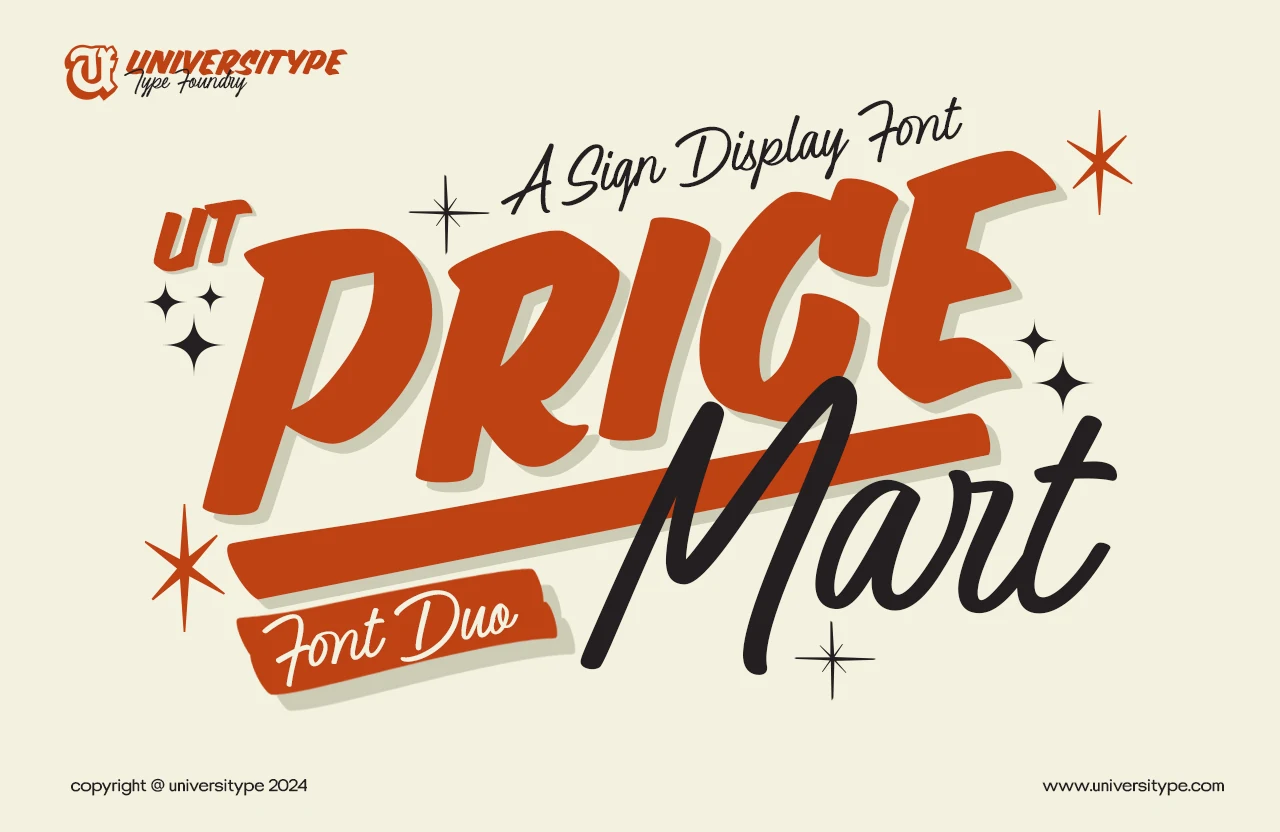
Best For: signage, posters, logos, retro designs
Price Mart Duo Font pairs a chunky slanted display style with a loose script, giving the layout a clear sign-painter rhythm. The bold caps have angled cuts, tight counters, and a slightly irregular hand-drawn edge, while the script adds long looping strokes suited to Bold Script Fonts with a retro commercial feel.
The practical strength is hierarchy: use the heavy sans for the main word, then let the script act as a secondary name, tag, or modifier. Keep contrast high and avoid crowding the script beneath dense headlines, because its tall loops need room to stay readable against the blockier lettering.
Cheers Font
Best For: logos, posters, stickers, retro designs
Cheers Font pushes a 70s and 80s sign-lettering mood through thick connected strokes, inflated curves, and oversized entry and exit swashes. Its rounded script shape feels upbeat rather than polished, giving Bold Script Fonts a strong retro display voice with plenty of logo-ready weight.
The style works best when the main word is short and allowed to dominate the layout. Use the outline or extruded treatment to separate it from busy backgrounds, and keep supporting text simpler and smaller so the heavy script remains the visual focus.
Holing Font
Best For: logos, signage, posters, vintage designs
Holing Font has a vintage sign-script build: heavy rounded strokes, a steady forward slant, and smooth joins that keep the word moving without turning sharp. The tall initial forms and compact inner loops give it enough structure for Bold Script Fonts that need a clear retail or poster headline.
Its weight carries the message well, but the layered shadow effect needs consistent offset and strong color separation to stay clean. Use it for short names or display phrases where the thick curves can sit large, and keep secondary type narrow and simple so it does not compete with the script’s broad rhythm.
Biyonella Font
Best For: logos, branding, posters, retro designs
Biyonella Font has a rounded retro script build with thick connected strokes, a high-contrast inline effect, and a long exit swash that gives the word a vintage badge or poster feel. The large looped capital and smooth lowercase joins make it a strong fit for Bold Script Fonts with clear display energy.
The brown shadow and white outline treatment show how well it handles layered color, but the spacing still needs room around the descenders and terminal swash. PUA encoding helps reach glyphs and swashes for custom wordmarks, especially when shaping logos, packaging names, or short retro headlines.
Hamilton Font
Best For: logos, signage, posters, retro designs
Hamilton Font has a bold retro script rhythm with thick slanted strokes, rounded terminals, and a broad capital H that gives the word an immediate sign-painter feel. Its smooth joins and curled final stroke make it a strong choice for Bold Script Fonts where the headline needs motion without losing weight.
The lettering is compact through the middle, so the strongest use is a short name or main brand word with enough space around the first and last swashes. Keep supporting text squared-off or condensed, and use high contrast so the heavy orange script stays readable over darker vintage-style compositions.
Bold Script Font
Best For: logos, branding, posters, vintage designs
Bold Script Font uses a thick vintage script structure with cream letterforms, a dark shadow, and layered color that gives the wordmark a poster-ready feel. Its rounded connections and heavy rhythm make it suitable for Bold Script Fonts that need instant display weight.
Use it for short brand names, retro packaging, badges, and headline graphics where the shadow can separate the script from the background. Keep the word large, avoid dense copy, and pair it with simple sans or serif support text.
Platina Script Font
Best For: logos, posters, T-shirts, retro designs
Platina Script Font has a chunky retro script build with rounded strokes, deep curves, and long swashes that make the words feel locked into one bold display shape. Its connected rhythm and thick letter bodies give it the assertive presence expected from Bold Script Fonts without losing the casual hand-lettered flow.
Conclusion
For fast impact, start with retro and layered bold script fonts for posters, signage, and merch. Choose rounded and playful scripts for stickers or casual packaging, and use elegant calligraphic styles when the design needs a heavier script that still feels clean, polished, and readable.